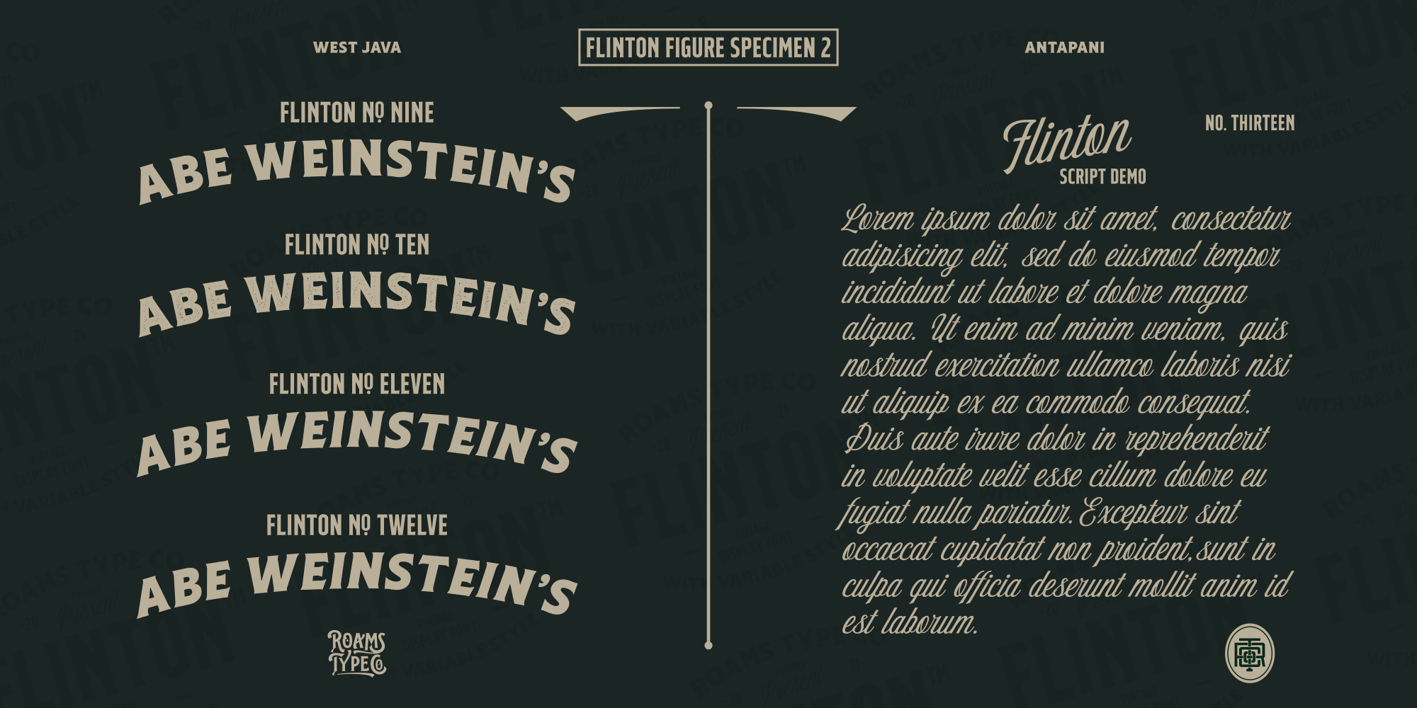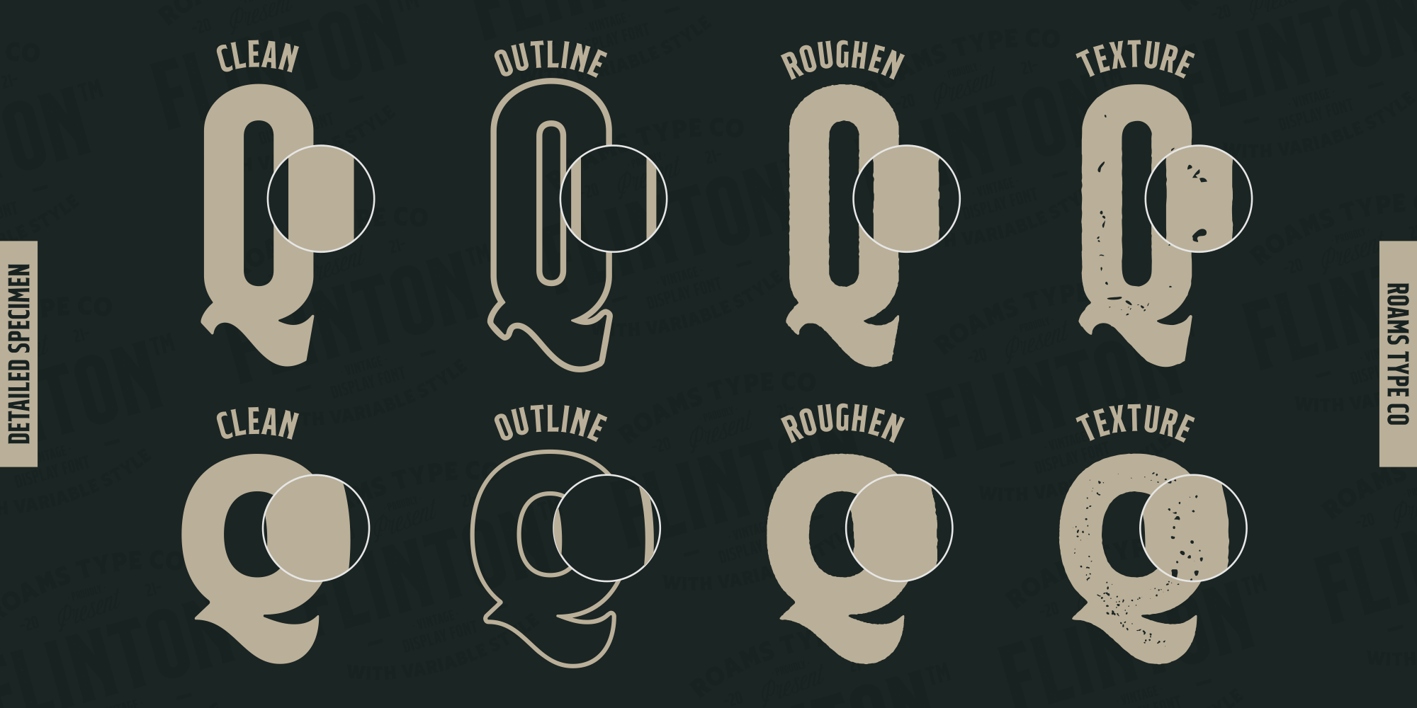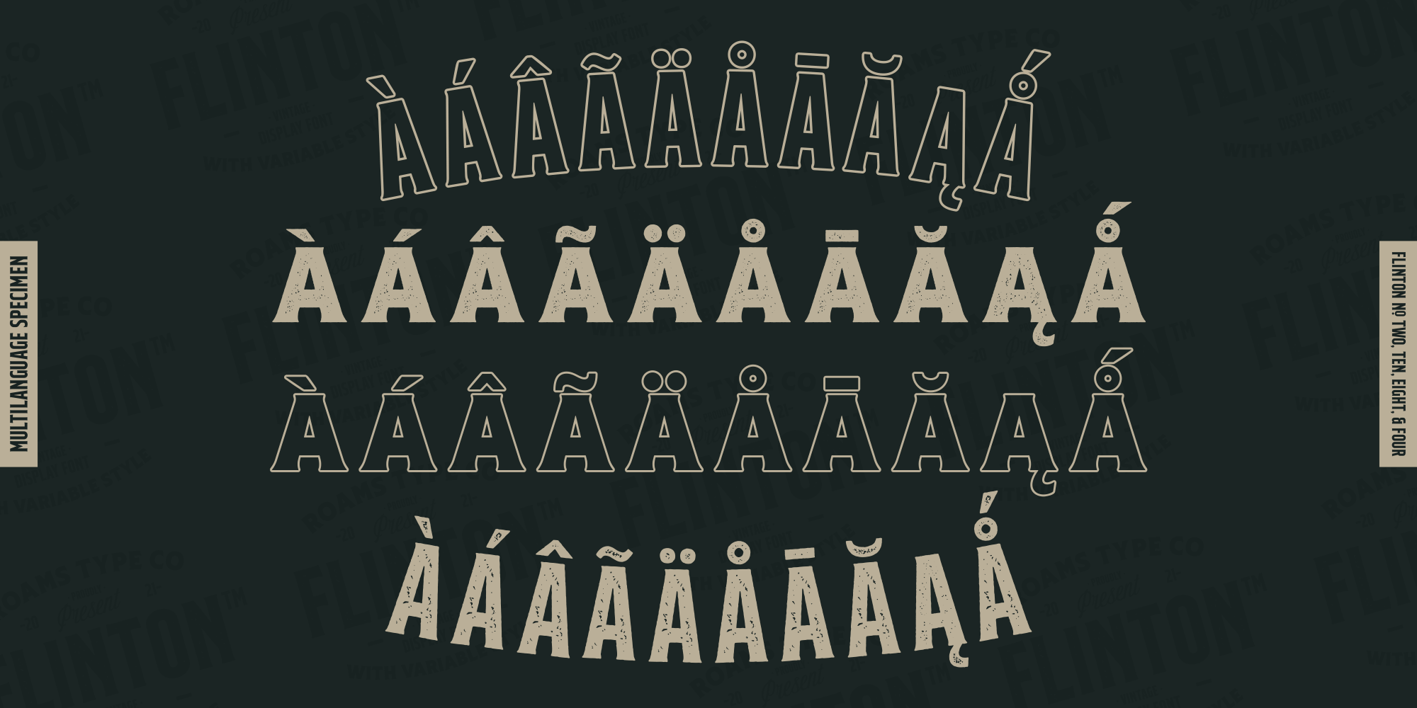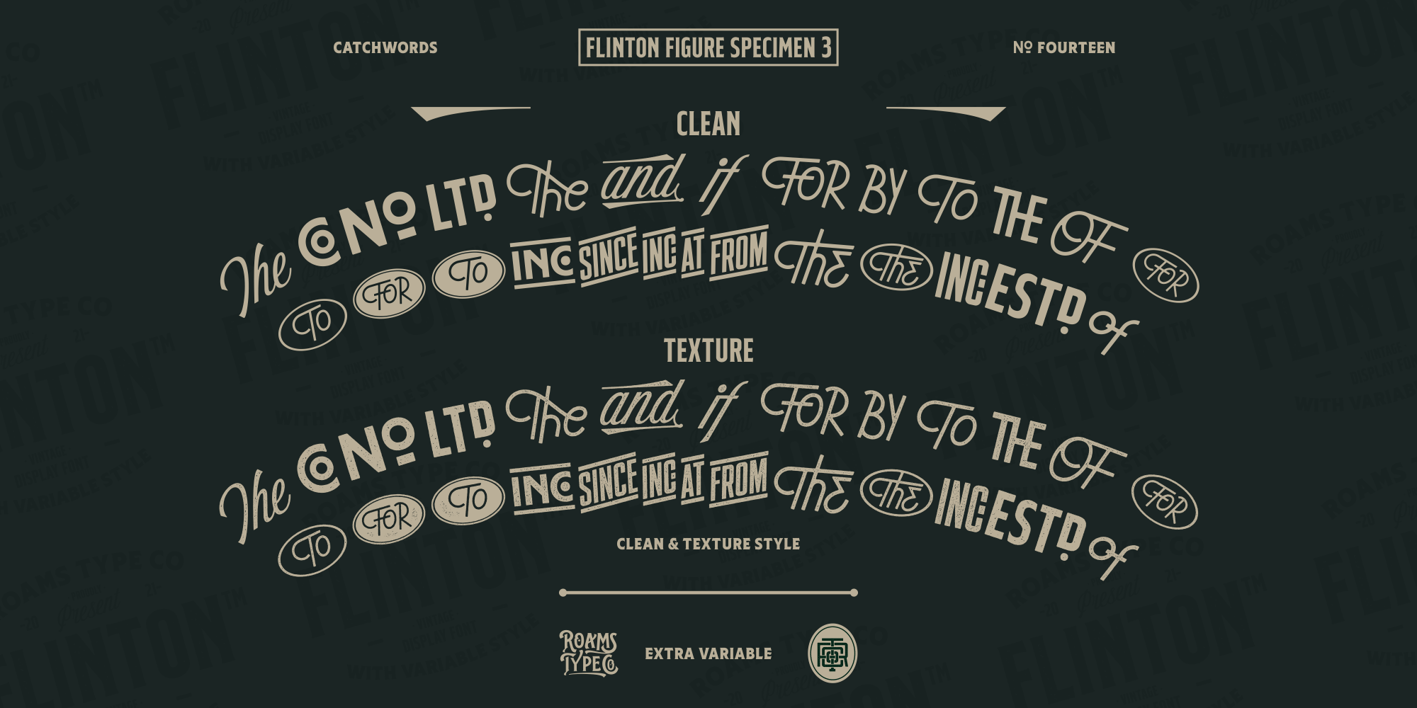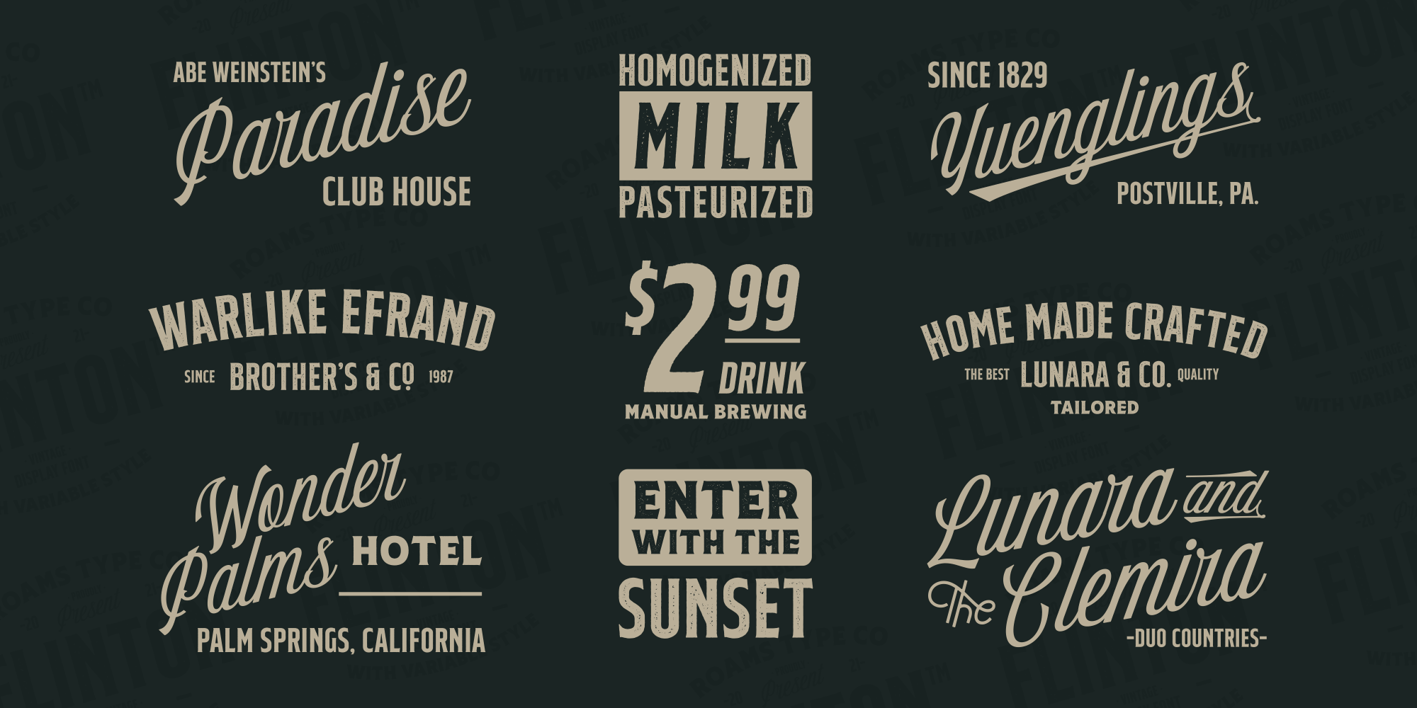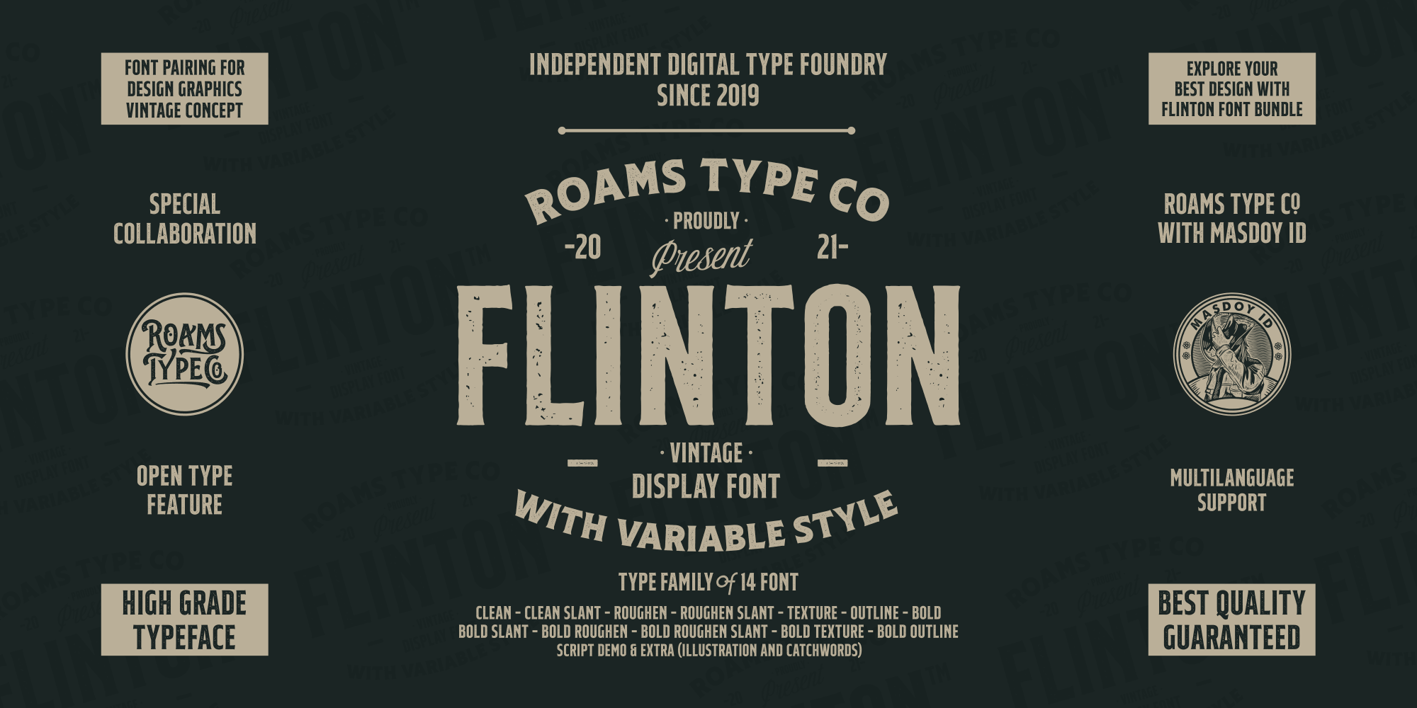
RTCO Flinton Font
Flinton is a basic Vintage Serif Display Font. Flinton Font Family consists of 3 types of letters that have several variants into 14 font style, Include Regular Serif, Bold Serif & Script Demo and Catchwords & Illustrations for extras. This font is suitable for types of designs that have elements of Vintage Concepts, such as logotypes, posters, merchandise designs, etc. And this font has an opentype feature, also supported for several languages,